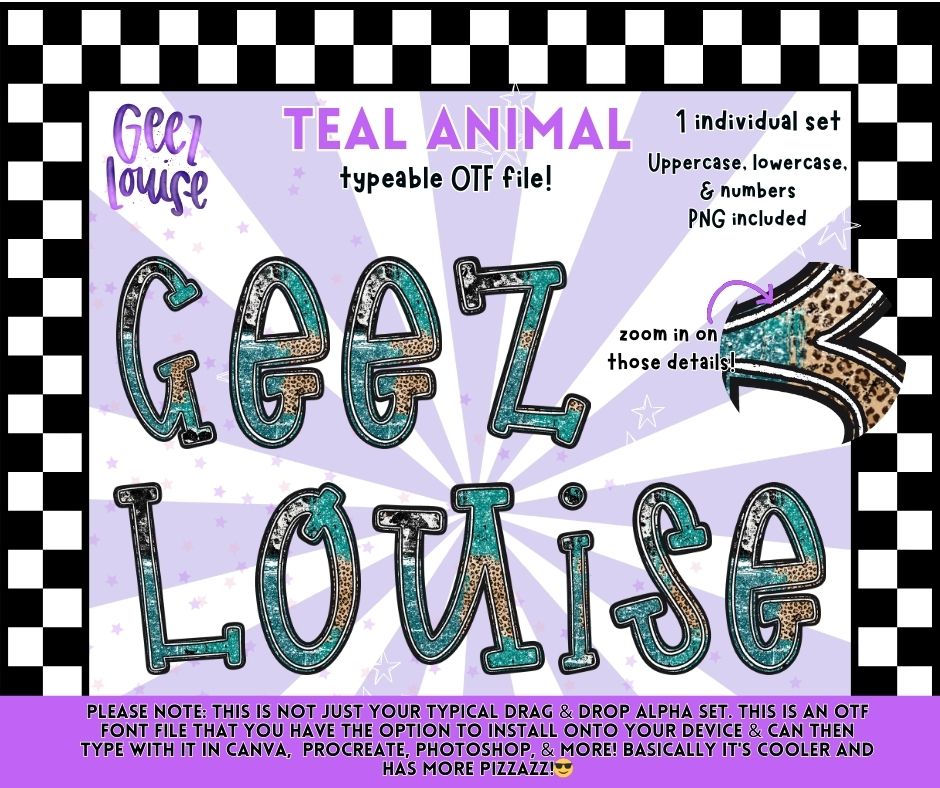
Teal Animal OTF Font & PNG Alpha Set | Typeable Alphabet | Uppercase Lowercase Numbers | Digital Download
Add bold teal animal print style lettering to your designs with this typeable OTF alpha set.